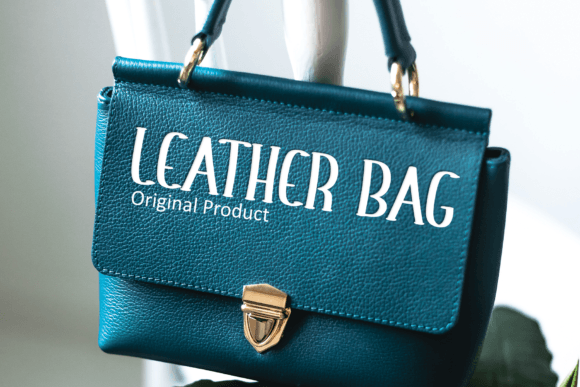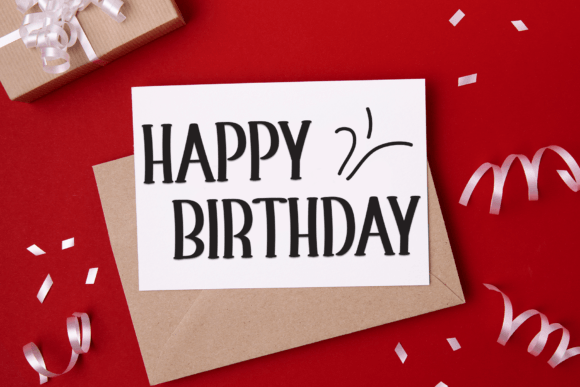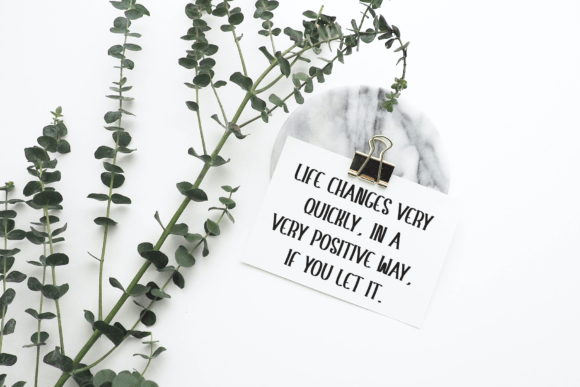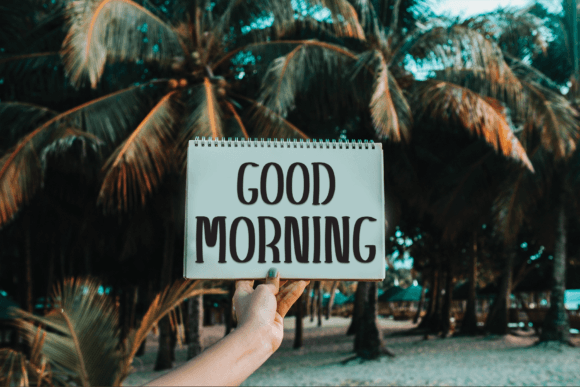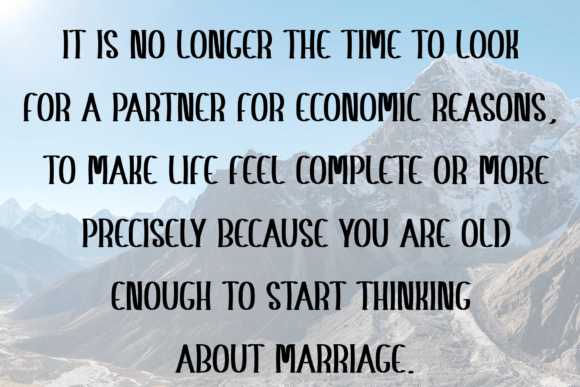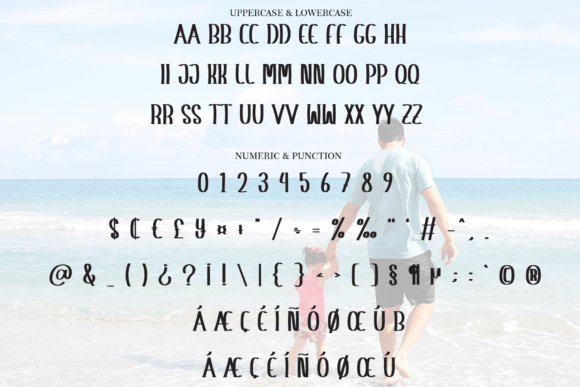
Introduction to Happyholidays Font
Do you remember the moment when you finally landed the perfect design project? The thrill of creating something unique and special for a client or loved one is exhilarating. For designers, it’s moments like these that make all the late nights and creative struggles worth it. And what’s a great way to add a personal touch to your design project than with a beautiful, high-quality font?
That’s where the Happyholidays Font comes in – a sweet and friendly handwritten font that’s perfect for adding a fun and festive touch to your creative project. With its fresh and cute style, this font is ideal for writing wedding invitations, cards, or any other design that needs a little extra love. And the best part? You can easily download it for free, making it a valuable resource for designers of all levels.
Key Features of Happyholidays Font
• High-quality design resource ideal for creative projects, including holiday-themed graphics and designs.
• Unique, hand-drawn style with a transparent background, allowing for easy layering and customization in your design project.
• Includes a range of characters and glyphs, including uppercase and lowercase letters, numbers, and special symbols.
• Perfect for adding a festive touch to your designs, from greeting cards to social media graphics and holiday-themed merchandise.
Honest Review: Happyholidays Font
As a designer, I’m always on the lookout for high-quality design resources to elevate my creative projects. Recently, I stumbled upon the Happyholidays Font, which I’ll be reviewing in this post.
• ✨ The Happyholidays Font features a transparent background, allowing for seamless integration into various design elements.
• ✨ The font’s playful and festive vibe is perfect for holiday-themed projects or branding.
• ⚠️ The font may not be suitable for formal or professional projects, as it can come across as too casual.
• ⚠️ Some users may find the font’s irregularities and imperfections distracting.
Overall, I’m impressed with the Happyholidays Font’s potential. While it may not be perfect for every project, it’s an excellent choice for designers looking for a fun and festive font to add some personality to their work. With a little creativity, the Happyholidays Font can be a valuable asset in any designer’s toolkit.
Happyholidays Font
The Happyholidays Font is a free design resource ideal for creative projects. It’s a high-quality font that offers a transparent background, making it perfect for a variety of applications.
For the best results, use the Happyholidays Font in conjunction with other high-quality design resources. Experiment with different font sizes, colors, and styles to create a unique and eye-catching design.
The Happyholidays Font is ideal for a variety of applications, including holiday cards, gift tags, and party invitations. It’s also perfect for creating social media graphics, blog posts, and other online content.